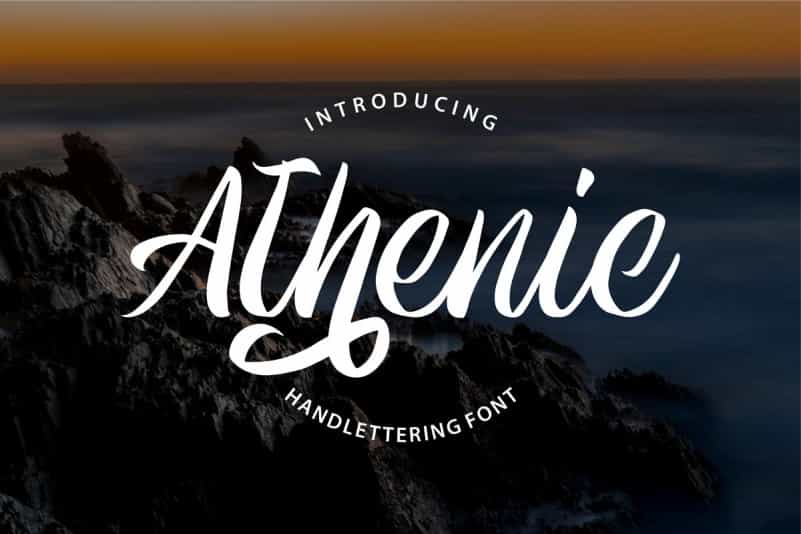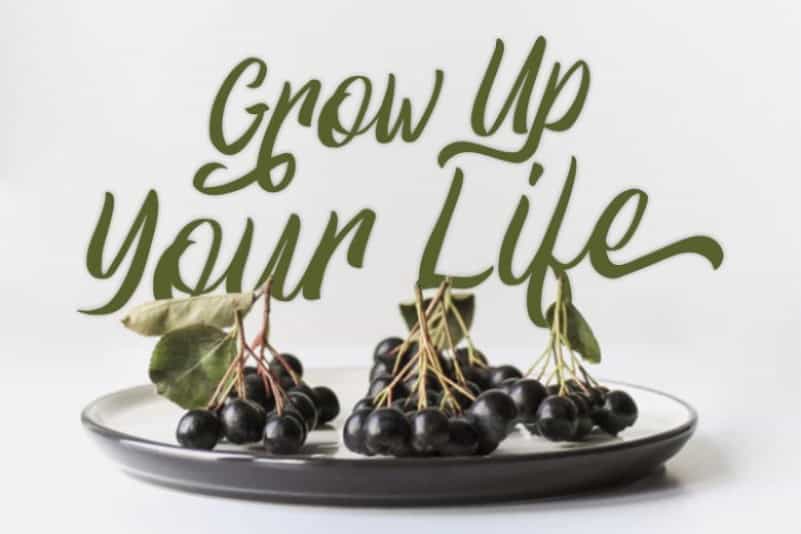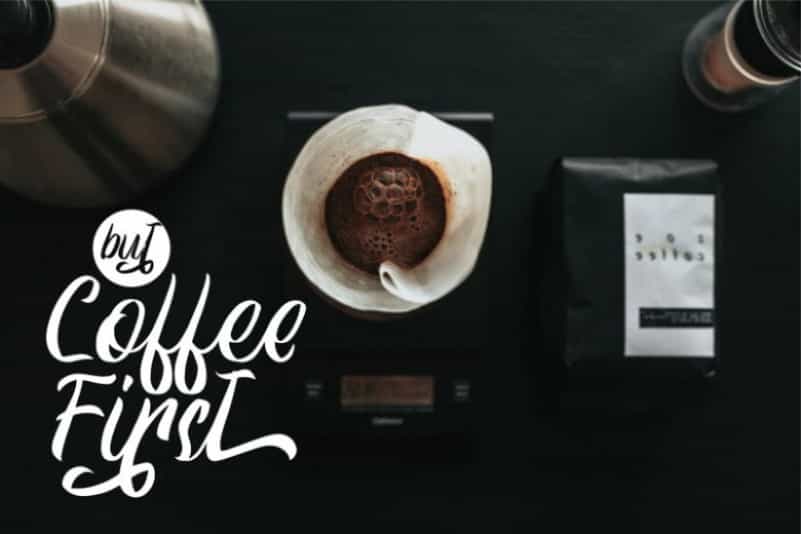
Athenic Script Font
Discover Athenic Script Font, part of the  Brush Calligraphy  Handwritten collection—a versatile and unique font perfect for adding a personal touch to your projects. Download it for free and enjoy crafting designs with style, from invitations to social media posts. This font is available exclusively for personal use, giving you the freedom to create without limits. Unlock your creativity with Athenic Script Font today!
Introducing Athenic Font. This one is created and posted by Good Java Studio. It also has a clean as well as an aged look for each style in the font. The vintage style is exactly for you who is looking for a font for especially logotype, apparel, invitation, branding, packaging, advertising, and etc. The font includes uppercase, lowercase, punctuations, symbols, and numerals and PUA encoded is included.